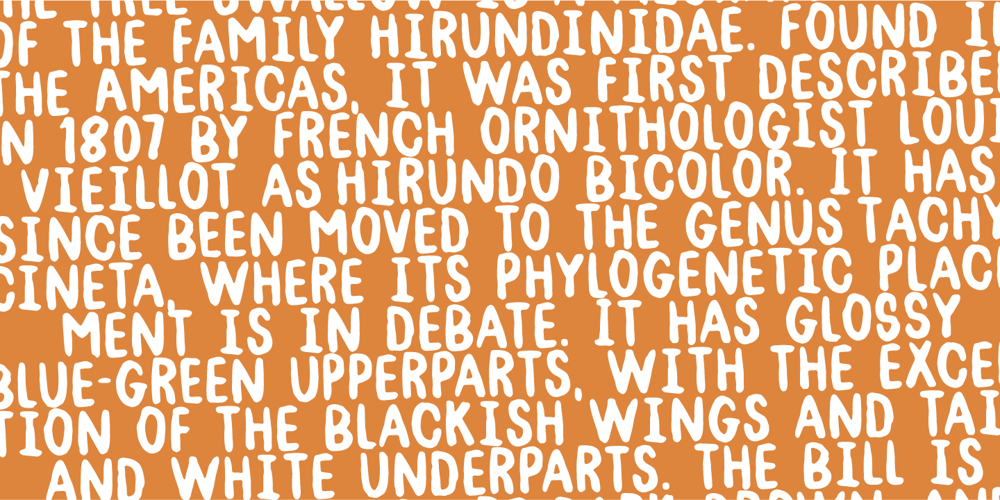
Vandmelon Font Family was designed by Jakob Fischer and published by PizzaDude.dk. Vandmelon contains 2 styles and family package options. Vandmelon (watermelon in English) is one of my all-time favorite fruits. The letters in this font actually made me think of watermelon. The ripe watermelon is juicy and has got the right kind of taste. Take a closer look at the smooth curves of the font, and tell me if you too think of watermelon! ๐